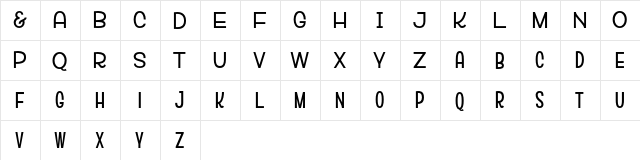
Versalita& Regular
| Foundry | Franco Fuentes |
| Designer | Franco Fuentes |
Design Context for Versalita& Typeface
Versalita& takes a measured approach to typography — its balanced proportions and neutral character make it a reliable workhorse for both digital and print work.